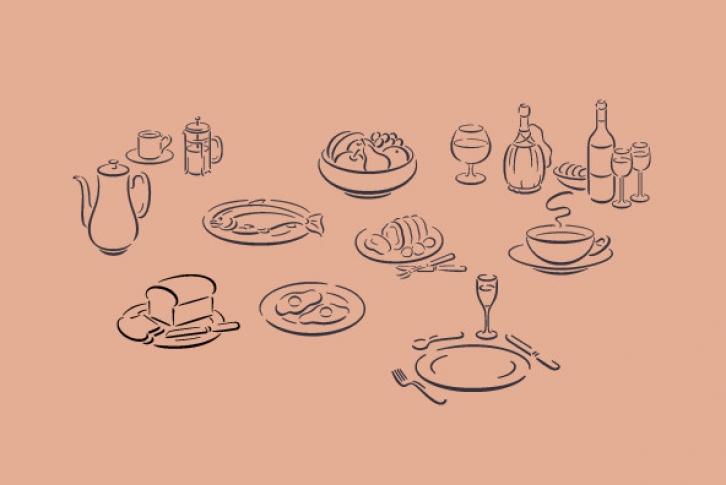
These scrumptious illustrations of food and drink are sure to sound your appetite alarm. The Delectables collection of images and themes is a must for any design work related to the culinary arts where the appearance of menu graphics and the like can be artfully enhanced. Created by up and coming British lettering designer and illustrator, Carol Kemp.